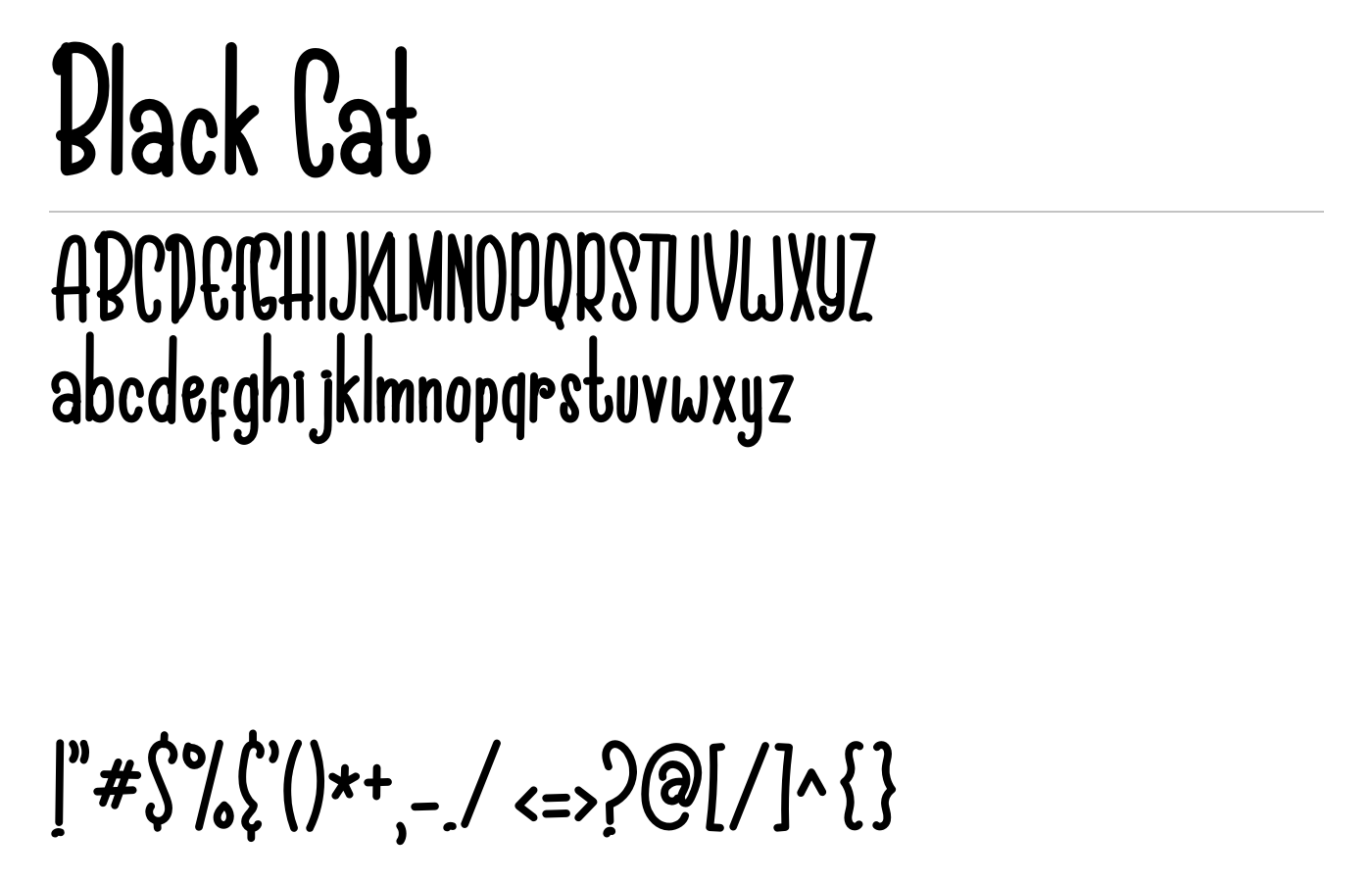
Black Cat is a playful and quirky sans serif font with a tall, narrow structure and informal, hand-drawn style. Its uneven strokes and whimsical letterforms give it a fun, casual personality, making it ideal for creative projects, children’s content, and lighthearted branding where a friendly and approachable tone is desired. This font works well for headlines, logos, and packaging that seek to convey charm and uniqueness.
Black Cat Font
About Black Cat Font
| Font family | Black Cat Font |
| Designer | Haksen Letters |